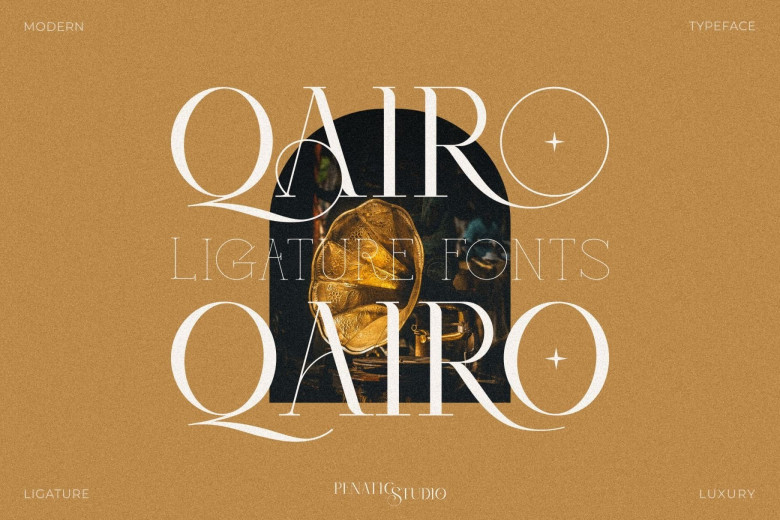
Qairo Font
Qairo Ligature Font is an elegant serif font featuring multiple ligatures that allows users to create variations and designs using letters. Perfect for branding purposes, invitations and magazines!
Qairo Serif Font